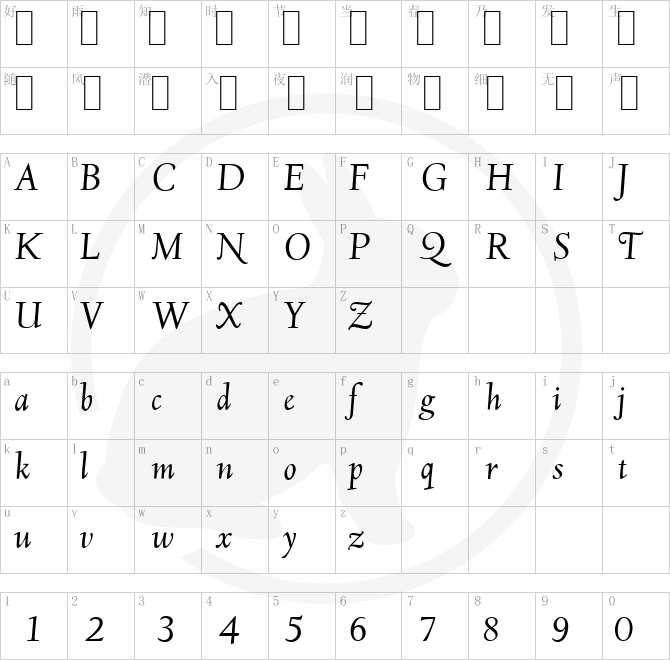
- Font Name:D690-Roman
- Subfamily:SoftMaker Software GmbH D690-Roman-Italic
- Full Name:D690-Roman-Italic
D690-Roman-Italic.ttf is a very beautiful artistic font, D690-Roman-Italic.ttf is widely used in the design and printing of various books and pictures,D690-Roman-Italic.ttf has a strong visual impact,D690-Roman-Italic.ttf is a commonly used font in newspapers, magazines and books, and is used in posters, e-commerce Poster design, store design, logo design, font design and other fields.D690-Roman-Italic.